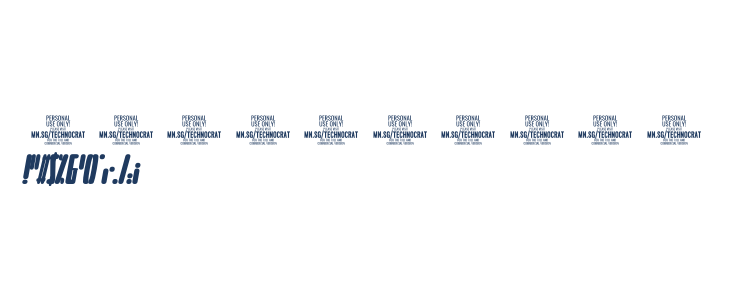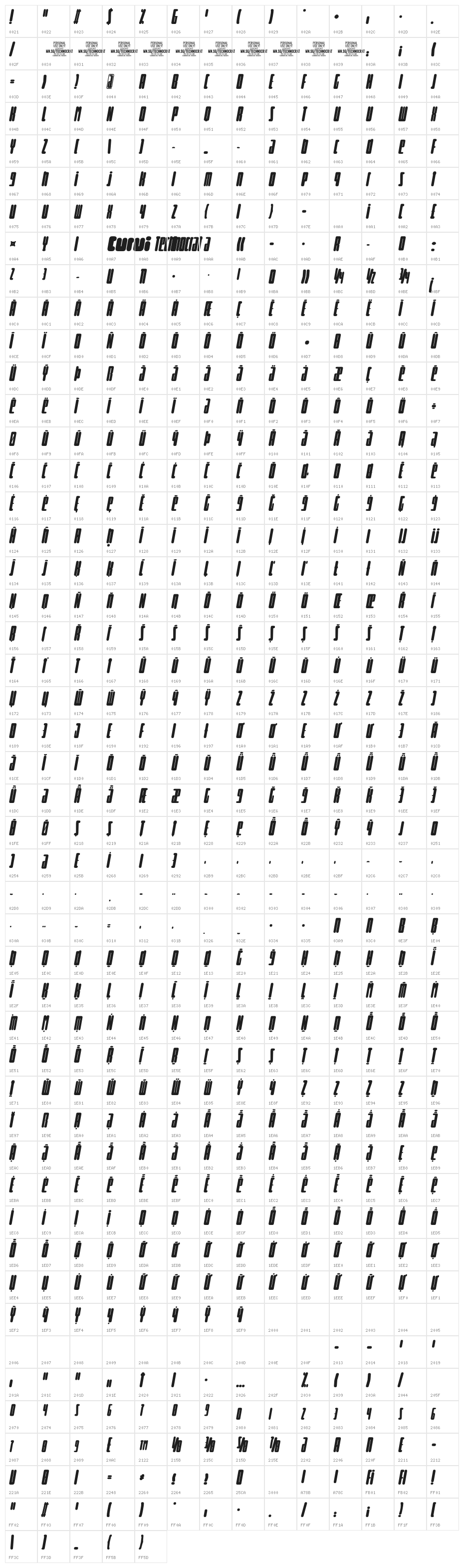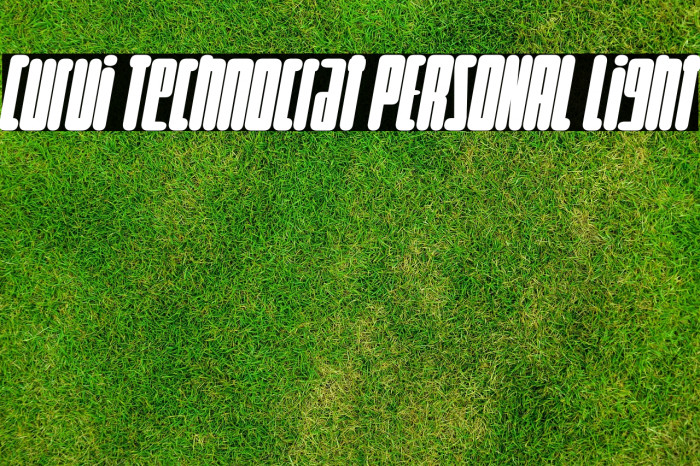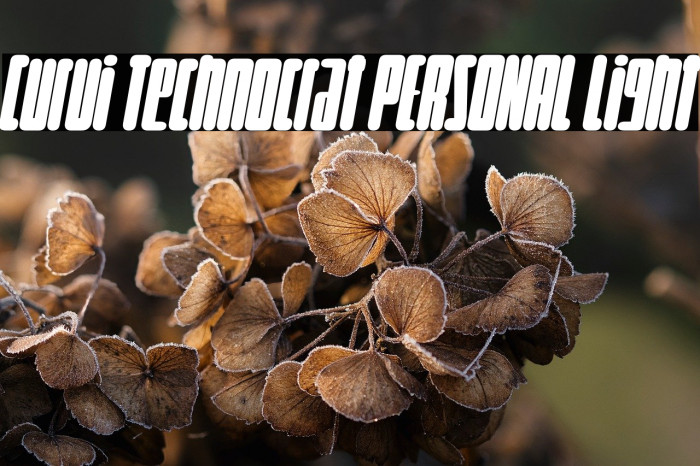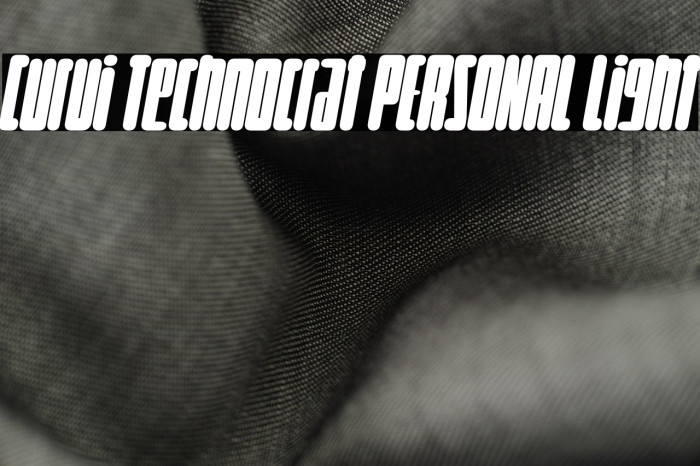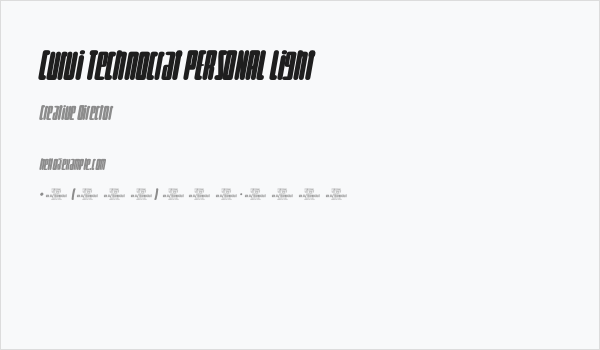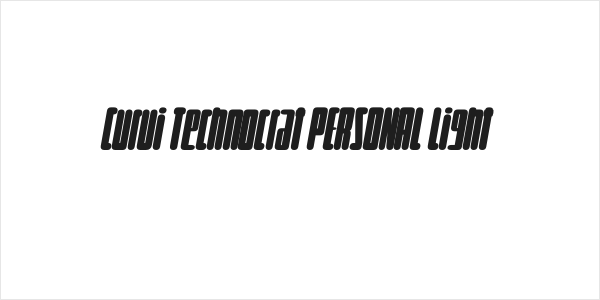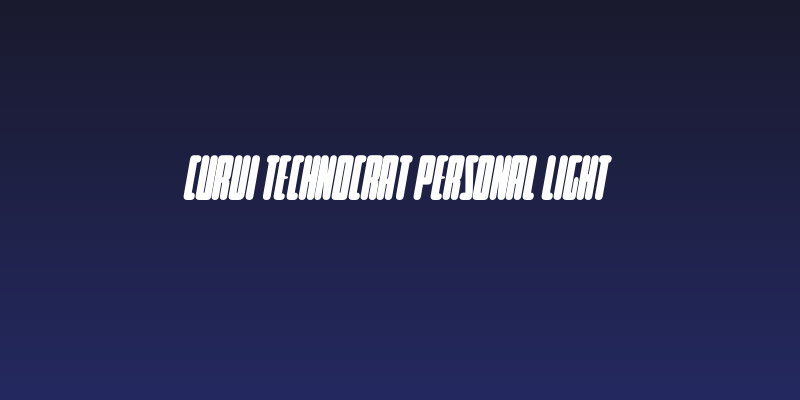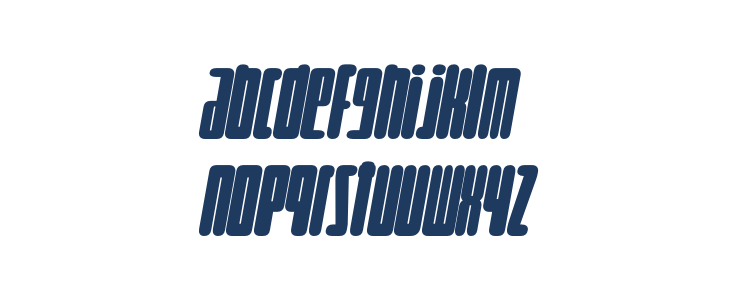
Curvi Technocrat PERSONAL Light Font
Curvi Technocrat PERSONAL Light Description
This font features a bold and futuristic design with rounded edges and a condensed structure. The characters are tightly spaced, giving it a compact and cohesive appearance. The uppercase and lowercase letters maintain a consistent style, with smooth curves and a modern aesthetic. The numbers and special characters follow the same design principles, ensuring uniformity across all glyphs. This font's unique style makes it stand out, ideal for projects that require a contemporary and tech-inspired look.